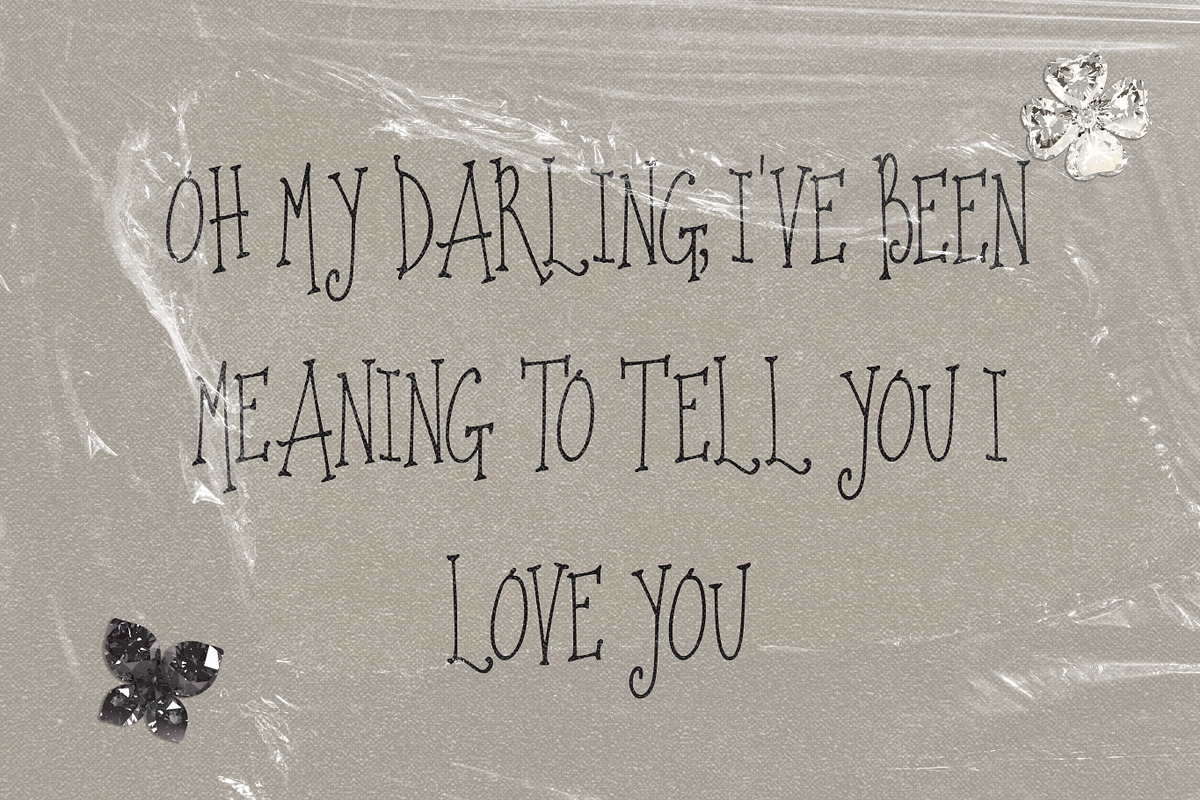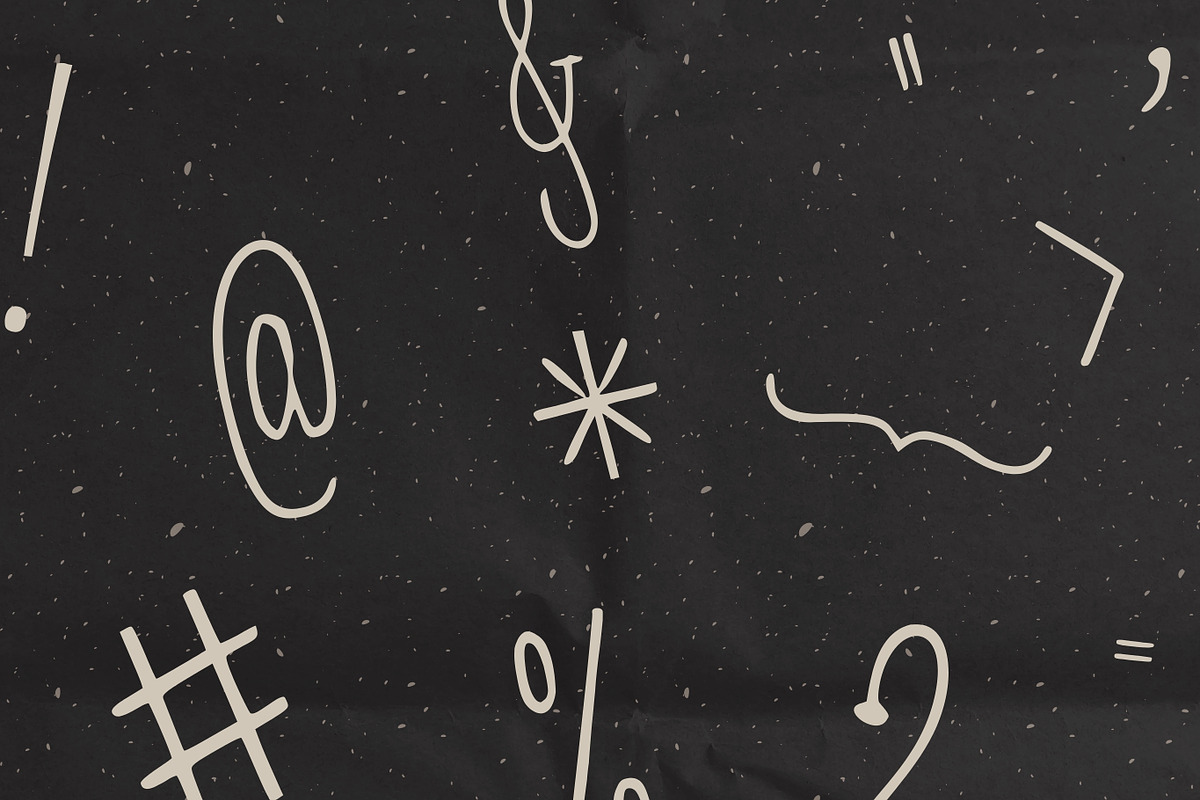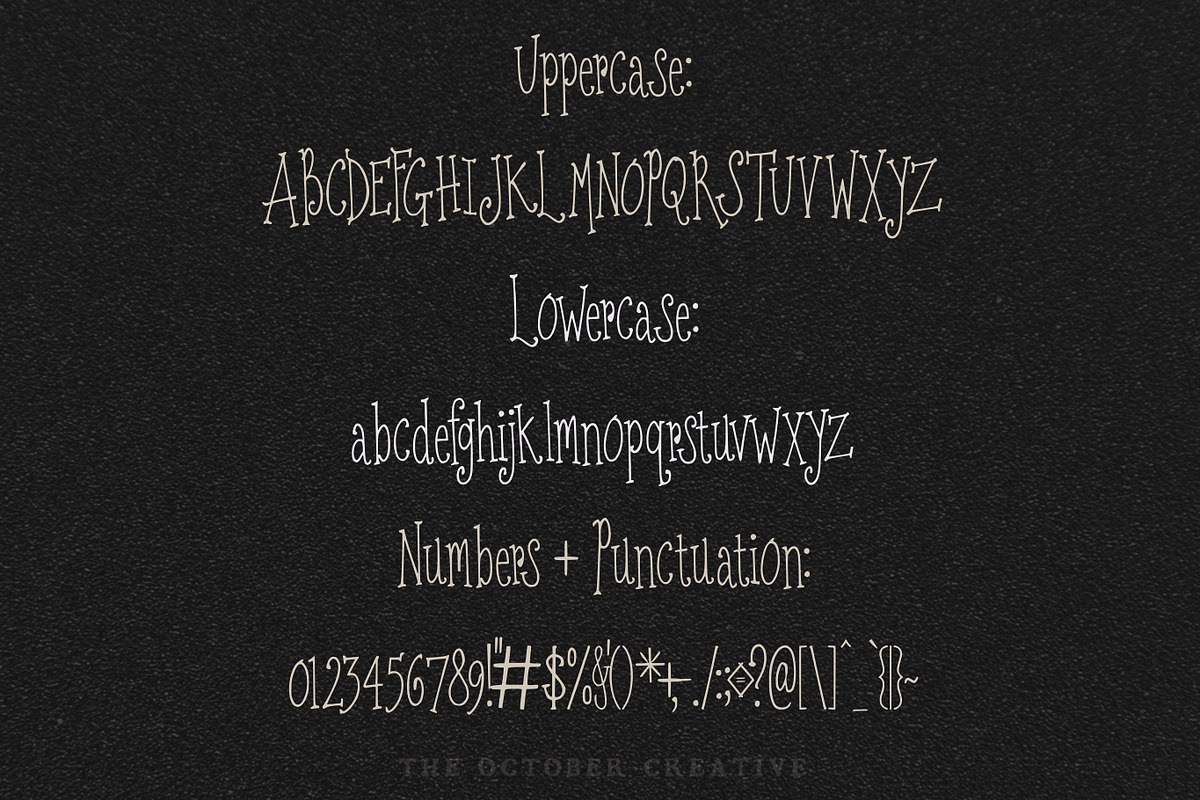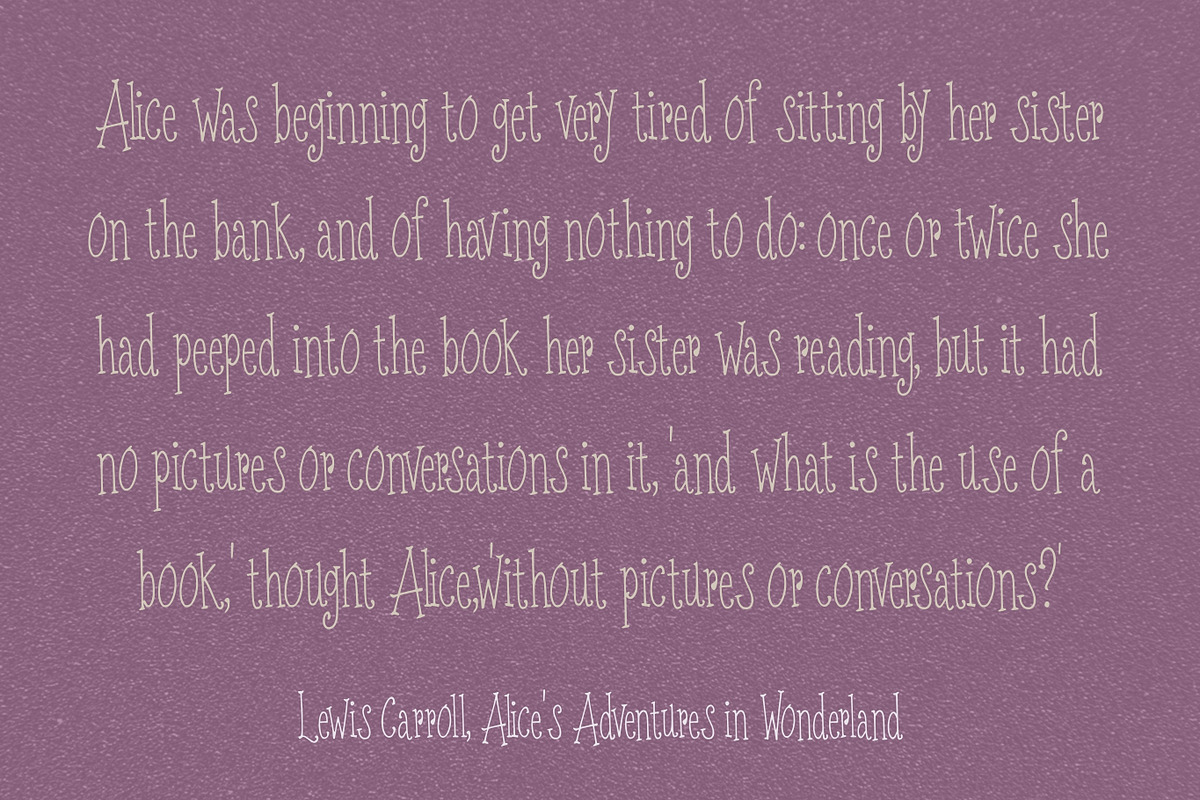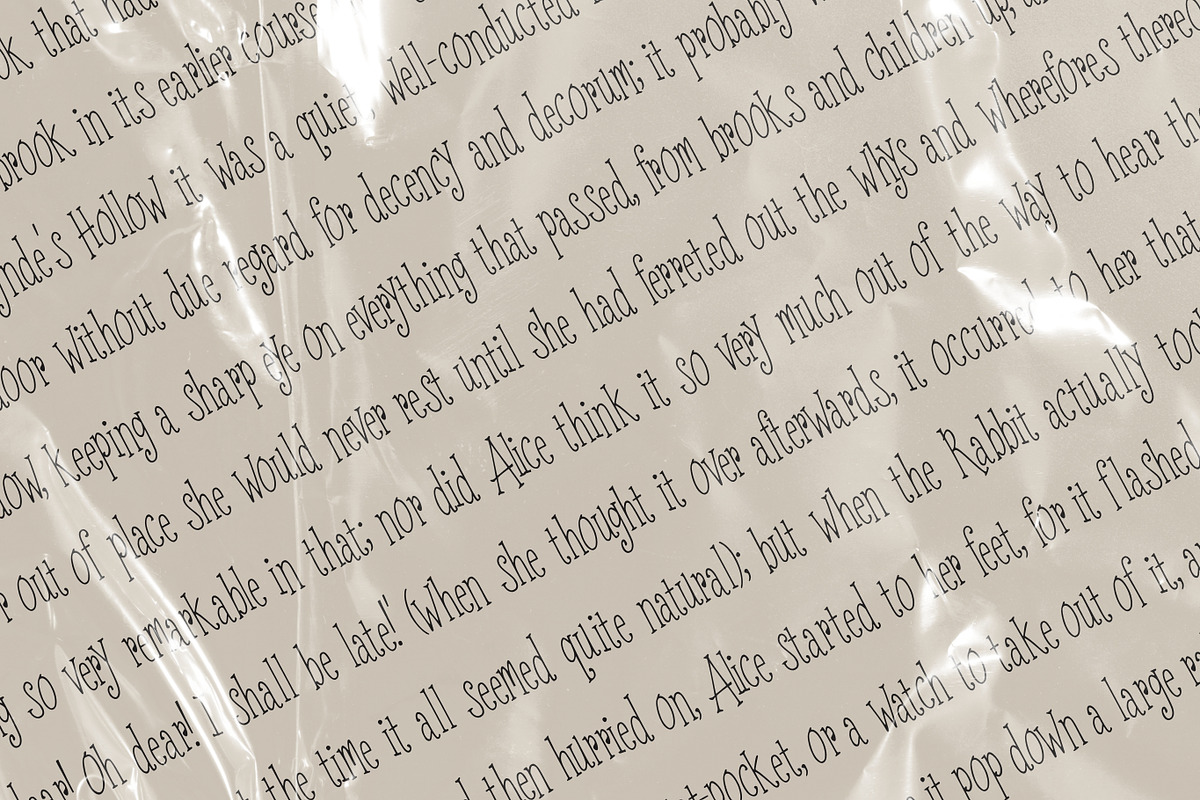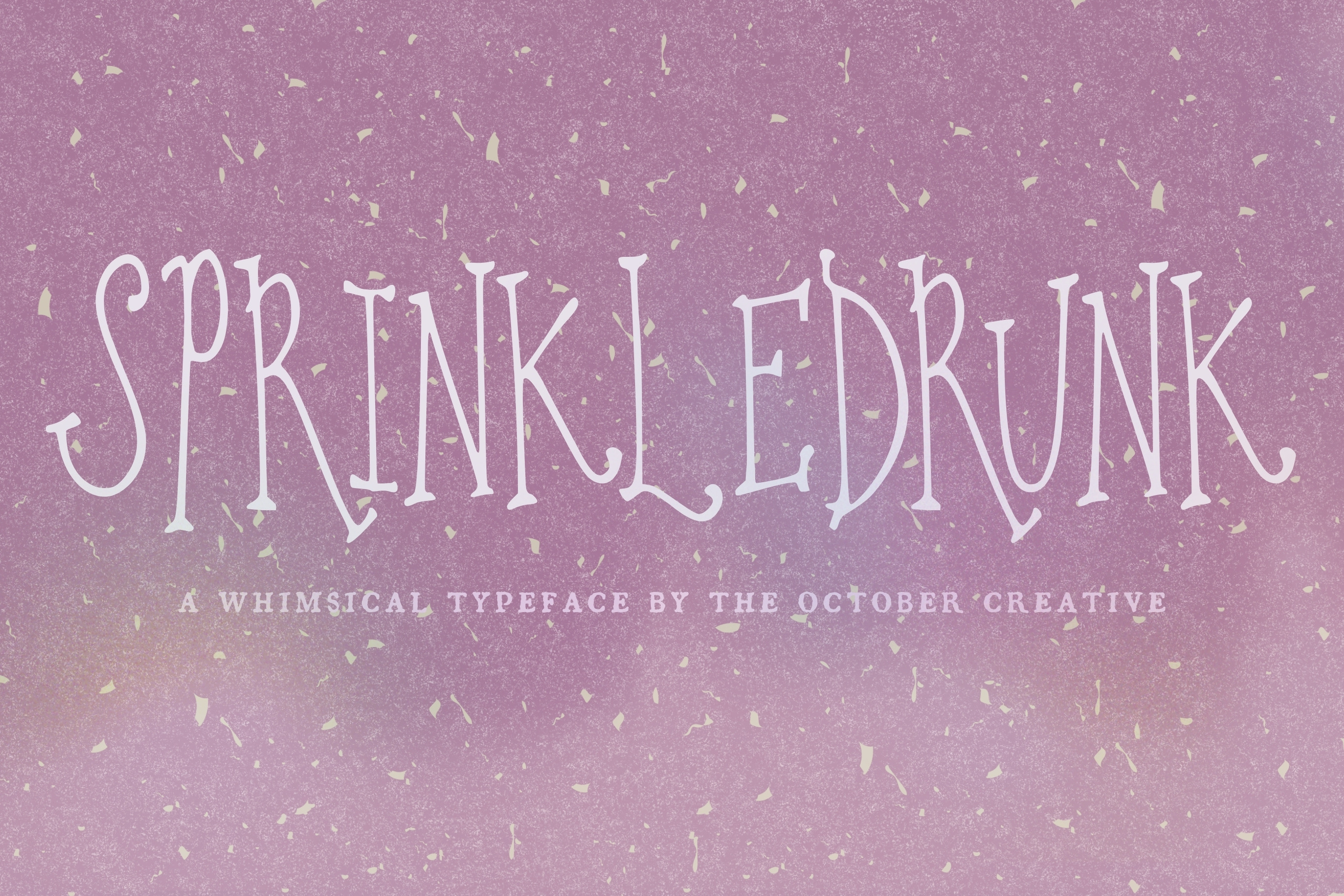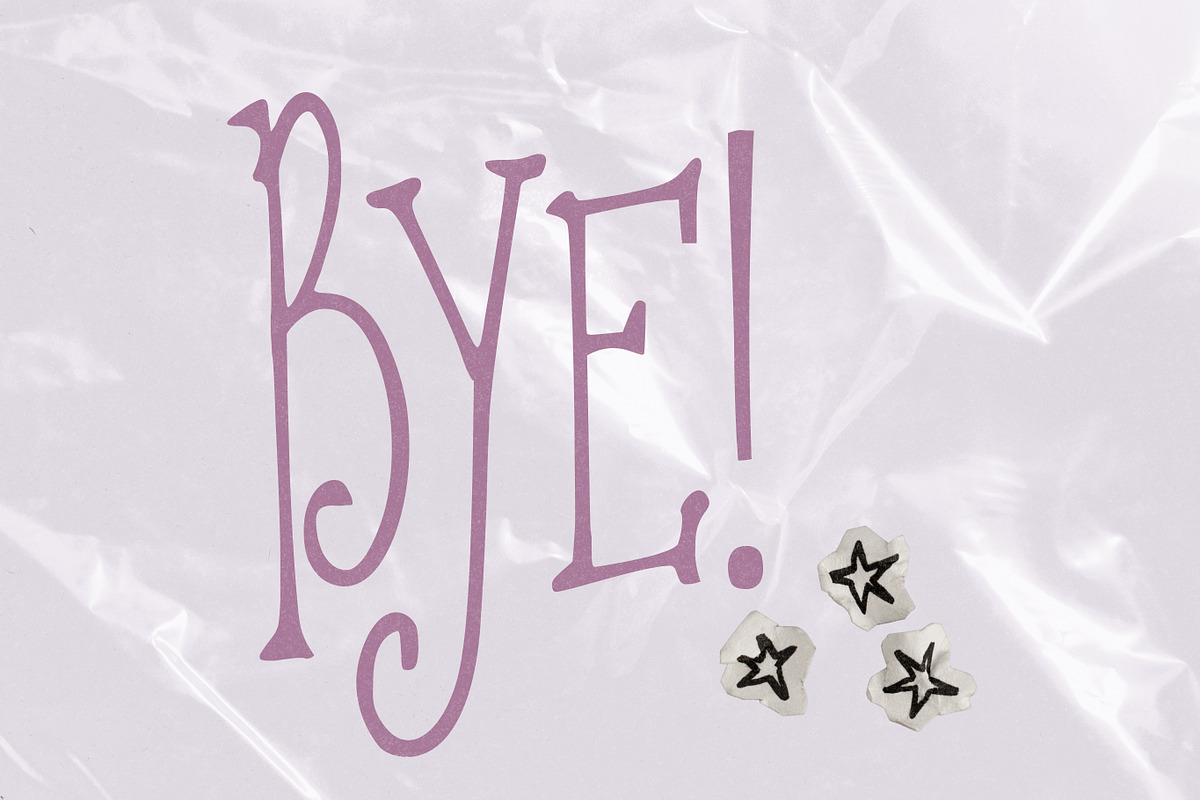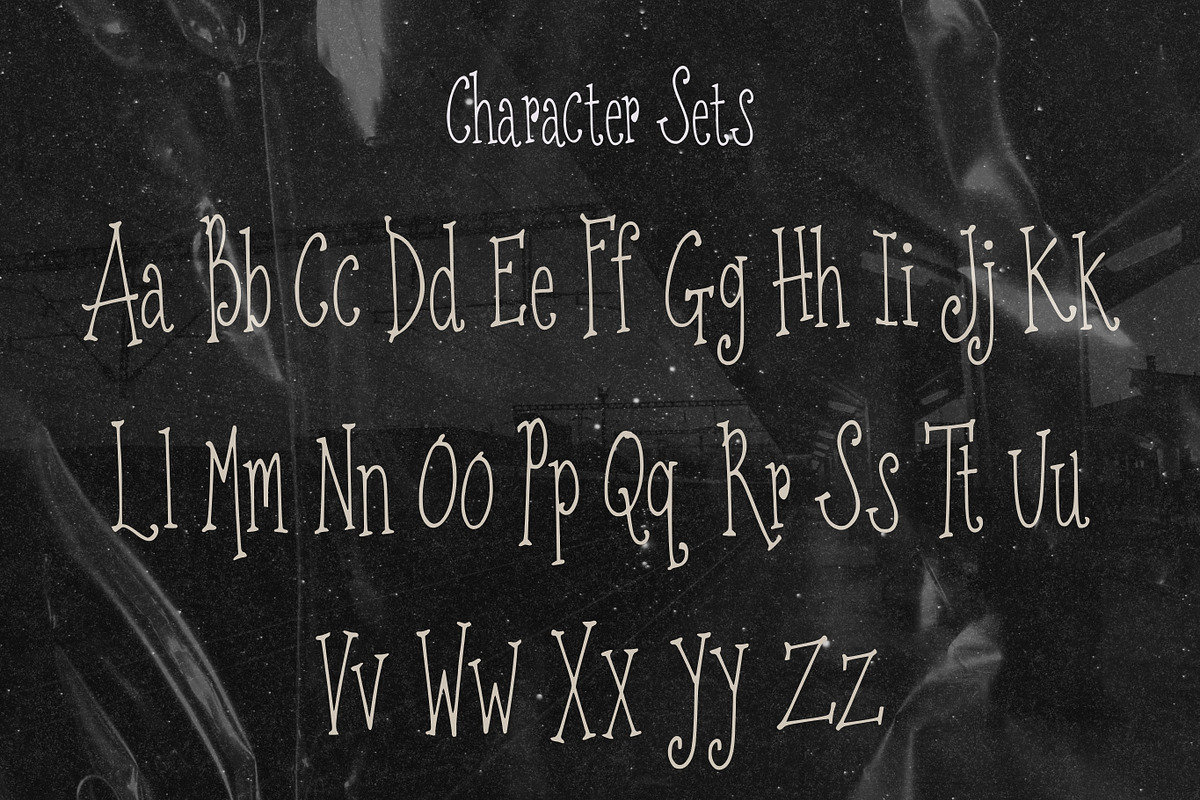
Sprinkledrunk Fun Playful Serif Font
Sprinkledrunk is a skinny, bouncy serif font with mixed-height capitals and tiny curled ends. It suits birthday banners, candy shop labels, dessert menus, and kids' party signs.
CHARACTER SET
Uppercase A to Z, lowercase a to z, numerals 0 to 9, and every standard keyboard punctuation mark and symbol: ! " # $ % & ' ( ) * + , - . / : ; < = > ? @ [ \ ] ^ _ ` { | } \~
Curly quotes and apostrophes (‘ ’ “ ” ‚ „), en and em dashes, an ellipsis, and a bullet.
Accented letters: À Á Â Ã Ä Å Ç È É Ê Ë Ì Í Î Ï Ñ Ò Ó Ô Õ Ö Ù Ú Û Ü and their lowercase forms.
LANGUAGES SUPPORTED
English, plus the accented vowels, Ñ, and Ç used in names and everyday words in Spanish, French, Italian, Portuguese, German, and Dutch. Not included: ß, Æ, Ø, Œ, and the upside-down ¿ and ¡.
SPECIAL CHARACTERS